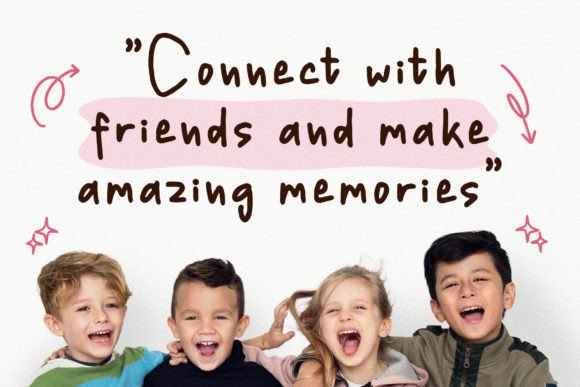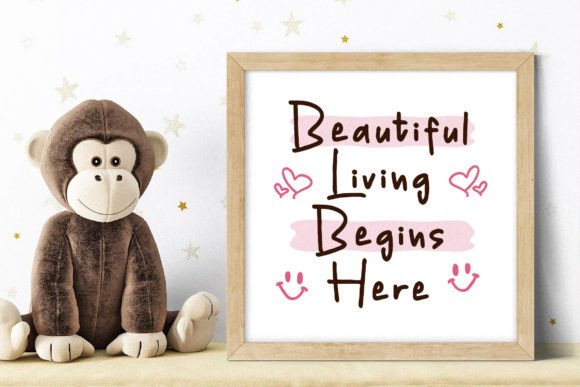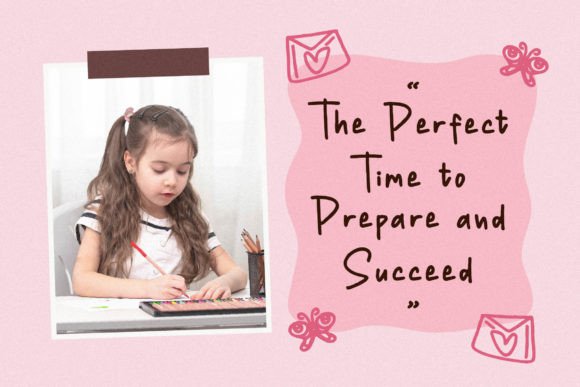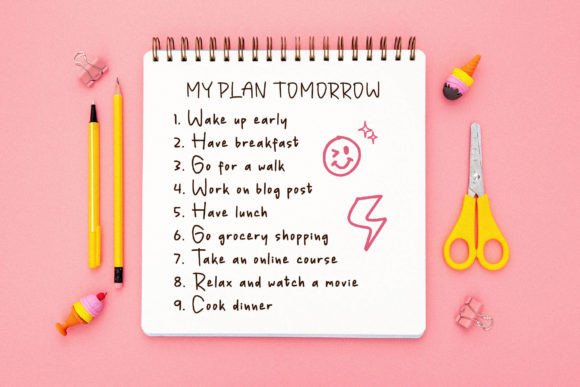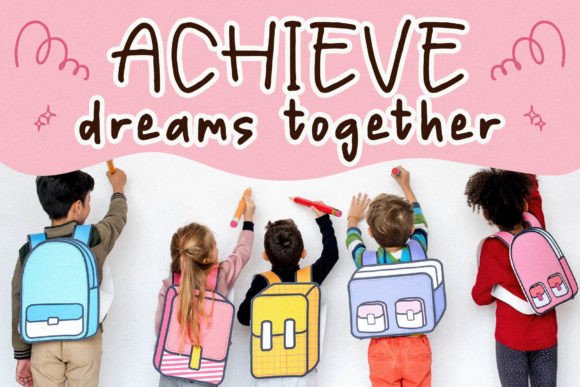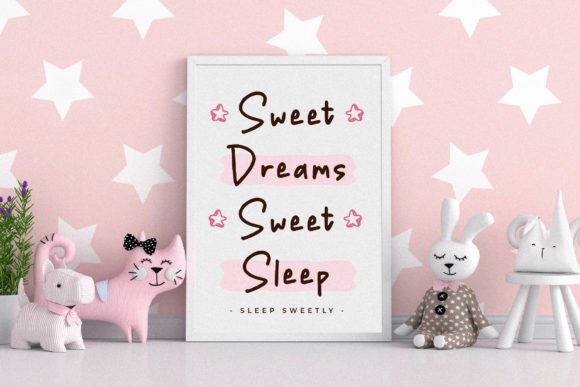
Introducing Friday Sunytime Font: The Perfect Choice for Fun and Playful Designs
Are you a designer, crafter, or educator looking for a font that can add a touch of playfulness and authenticity to your projects? Look no further than the Friday Sunytime Font! This fun and friendly handwritten font is perfect for children’s activities, school projects, and any design that needs a dash of whimsy.
What Makes Friday Sunytime Font So Special?
Friday Sunytime Font is a unique and charming handwritten font that embodies the spirit of playfulness and creativity. Its friendly and approachable style makes it perfect for designs that need to appeal to a younger audience. Whether you’re creating activity sheets, educational materials, or craft projects, this font is sure to make your designs come alive!
The Benefits of Using Friday Sunytime Font
So, why choose Friday Sunytime Font for your designs? Here are just a few benefits of using this fantastic font:
- Playful and Fun: Friday Sunytime Font is the perfect choice for designs that need to be fun and playful. Its whimsical style is sure to capture the attention of your audience and add a touch of personality to your projects.
- Authentic and Friendly: This font has a friendly and approachable style that makes it perfect for designs that need to appeal to a younger audience. It’s ideal for educational materials, children’s activities, and craft projects.
- Easy to Read: Despite its playful style, Friday Sunytime Font is easy to read and understand. This makes it perfect for designs that need to convey information in a clear and concise way.
- Versatile: Friday Sunytime Font can be used for a wide range of designs, from activity sheets and educational materials to craft projects and social media graphics.
How to Use Friday Sunytime Font in Your Designs
Using Friday Sunytime Font in your designs is easy! Here are a few tips to get you started:
- Pair it with Other Fonts: Friday Sunytime Font pairs well with other fonts, such as bold and sans-serif fonts. Experiment with different combinations to find the perfect look for your design.
- Use it for Headings and Titles: Friday Sunytime Font is perfect for headings and titles. Use it to add a touch of personality to your design and make it more engaging.
- Add Color and Graphics: Friday Sunytime Font looks great with color and graphics. Experiment with different colors and graphics to add depth and interest to your design.
Examples of Friday Sunytime Font in Action
Friday Sunytime Font can be used in a wide range of designs, from educational materials to craft projects. Here are a few examples of how you can use this fantastic font:
- Children’s Activity Sheets: Friday Sunytime Font is perfect for children’s activity sheets, such as coloring pages, word searches, and puzzles.
- Educational Materials: This font is ideal for educational materials, such as worksheets, textbooks, and educational posters.
- Craft Projects: Friday Sunytime Font can be used for craft projects, such as DIY tutorials, craft patterns, and handmade cards.
- Social Media Graphics: This font can also be used for social media graphics, such as Facebook posts, Instagram stories, and Pinterest pins.
In conclusion, Friday Sunytime Font is a fun and friendly handwritten font that is perfect for designers, crafters, and educators. Its playful and authentic style makes it ideal for children’s activities, school projects, and any design that needs a dash of whimsy. With its ease of use, versatility, and range of benefits, Friday Sunytime Font is a must-have font for any designer or crafter looking to add a touch of personality to their designs.